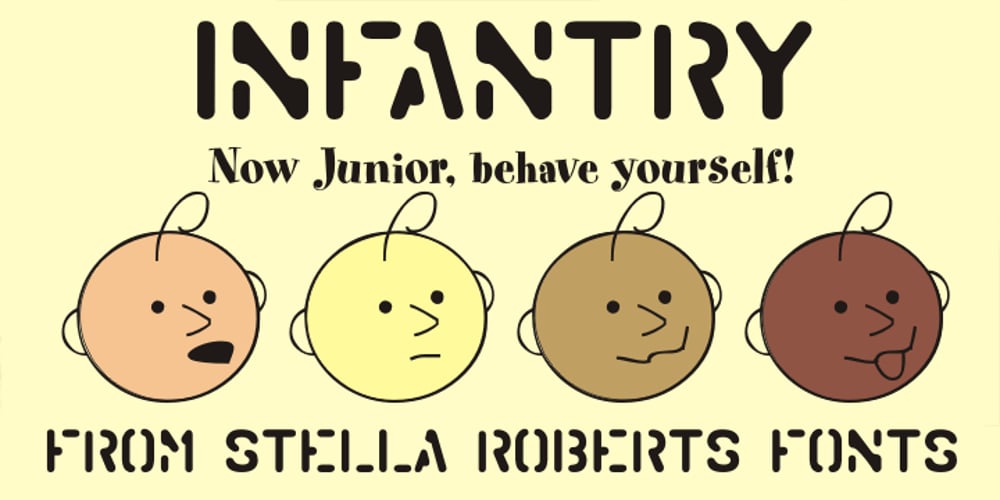
Infantry SRF
Infantry SRF font
Infantry SRF Font Family was designed by published by Stella Roberts Fonts. Infantry SRF contains 1 styles and family package options. Infantry SRF was originally a freeware dingbat font from Jeff Levine from 1999 featuring twenty-six cute baby expressions. Jeff has cleaned up the images, improved the font file and has now made it part of the Stella Roberts Fonts collection. The net profits from my font sales help defer medical expenses for my siblings, who both suffer with Cystic Fibrosis and diabetes. Thank you.